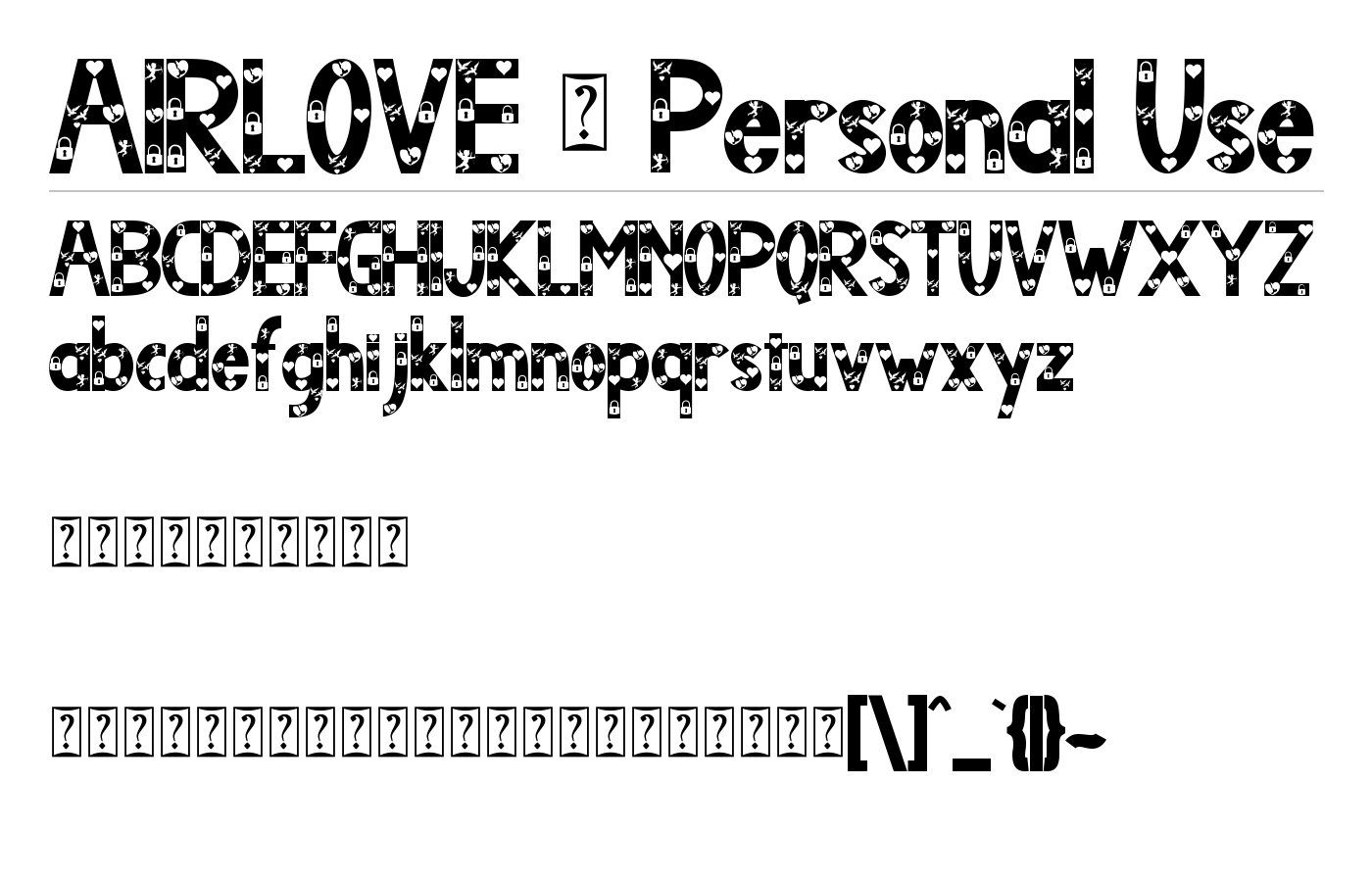
AIRLOVE is a bold, decorative sans serif font featuring a playful pattern of hearts, locks, and Cupids embedded within its solid letterforms, giving it a whimsical and romantic character. Its strong, condensed shapes with high contrast between the dark letters and the white symbols make it ideal for eye-catching headlines, themed party invitations, and creative packaging where a fun, love-inspired mood is desired. This font’s unique and festive design adds personality and charm, perfect for Valentine’s Day or romantic branding projects.
AIRLOVE Font
About AIRLOVE Font
| Font family | AIRLOVE Font |
| Designer | Yoga Letter 2022 (Isroni Yoga Prasetya) |